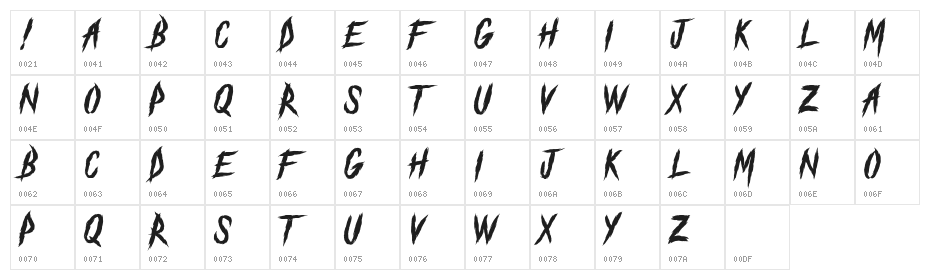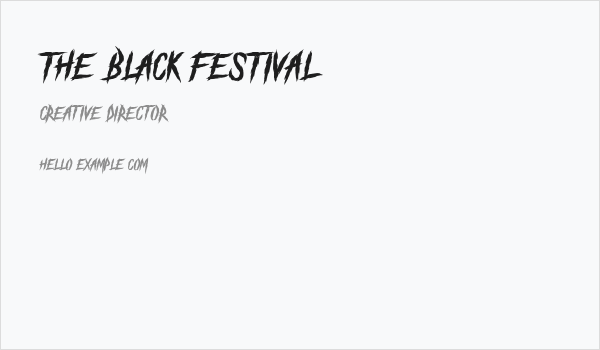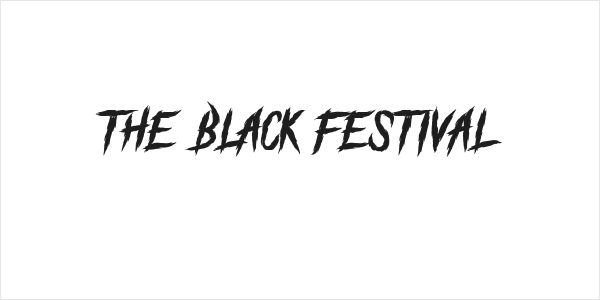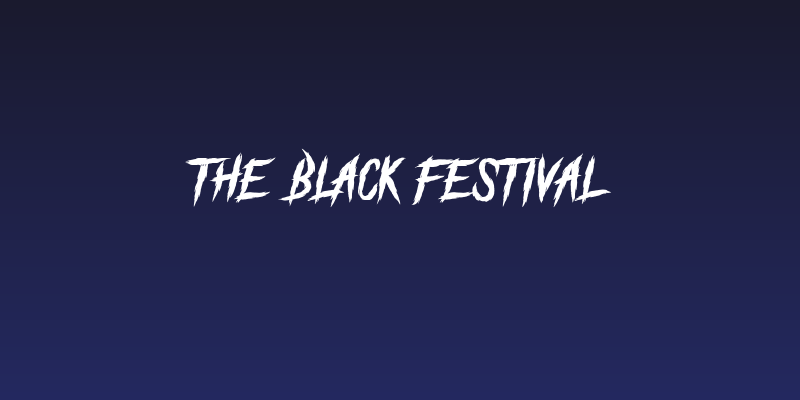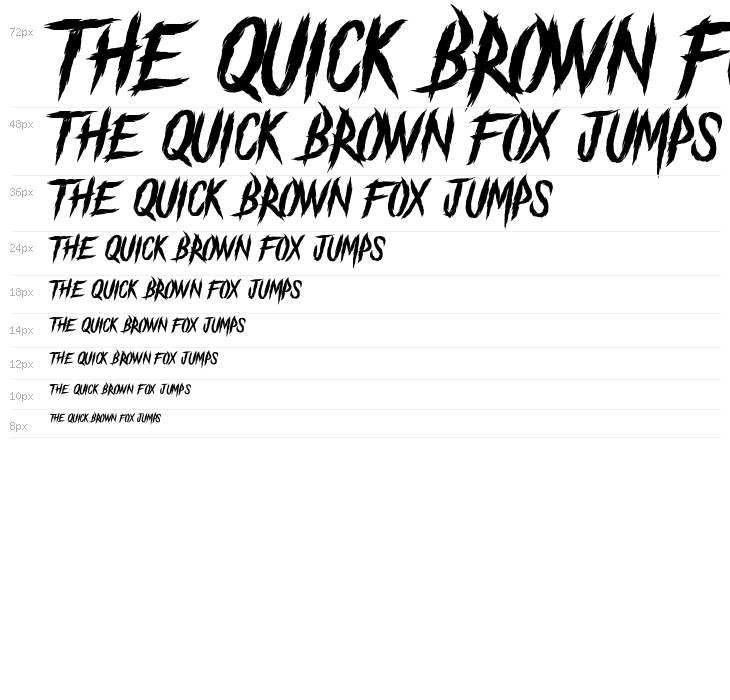
The Black Festival Font
The Black Festival Description
This font features a bold, aggressive style with sharp, jagged edges that give it a fierce and dynamic appearance. The strokes are thick and uneven, resembling brush strokes or claw marks, which contribute to its intense and energetic feel. The letters are slightly slanted, adding to the sense of movement and urgency. This font is highly decorative and makes a strong visual impact, suitable for projects that require a dramatic and eye-catching typeface.
| Proposed Projects | Ideal for horror-themed posters, edgy branding, music album covers, and event flyers. |